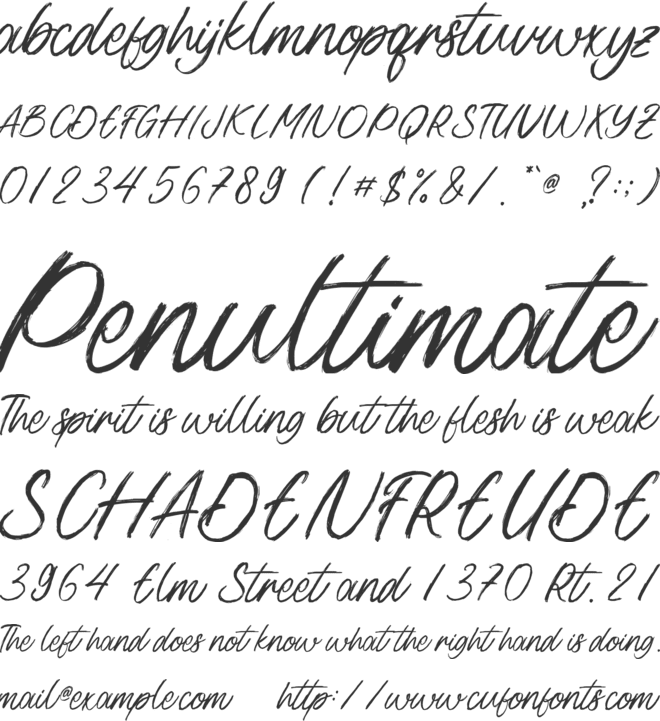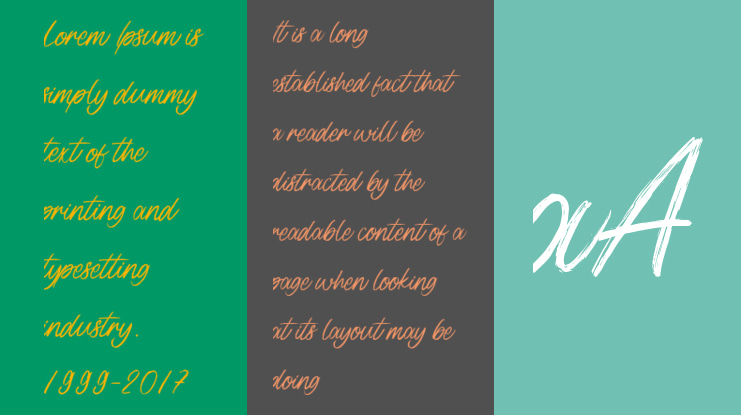
Brigrette Font
Brigrette is a soft handwritten script font with a warm, elegant, and cozy feel. Inspired by coffee moments, gentle emotions, and everyday happiness, Brigrette flows naturally with smooth strokes and balanced curves.
This font is perfect for quotes, coffee branding, logos, social media posts, packaging, invitations, and lifestyle designs.
Brigrette brings a calm yet expressive touch that feels personal, friendly, and timeless.
Whether you’re designing for digital or print, Brigrette adds softness and charm to every project.